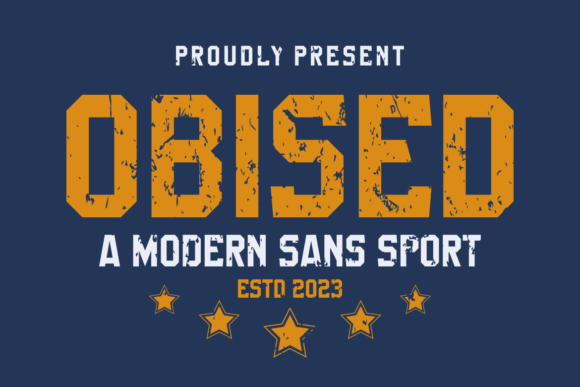
Introducing Obised Font - the epitome of power, energy, and resilience! Created by the visionary maikofarazhatta, this sans serif font is the ultimate choice for all your gaming subtitle needs.
With its bold and captivating design, Obised Font perfectly captures the dynamic spirit and toughness that are synonymous with physical activity and sports. It exudes an unrivaled strength that will elevate your gaming experience to new heights.
Obised Font is not just a font, it's a statement. It embodies the raw intensity of competitive gaming, making it the go-to choice for gamers and eSports enthusiasts alike. Its striking presence on any screen or platform will instantly draw attention and leave a lasting impression.
Whether you're a professional gamer, a gaming content creator, or an avid fan, Obised Font is your secret weapon for creating visually stunning subtitles that enhance the overall gaming experience. Its sleek and modern appearance adds a touch of professionalism, ensuring that your content stands out from the crowd.
But Obised Font isn't limited to just gaming. Its versatility shines through in its ability to be used in brand identities for sports teams, sports companies, and major sporting events. It effortlessly captures the essence of athleticism, making it the perfect choice to represent the spirit of any sports-related venture.
Don't settle for ordinary fonts when you can have the best font for gaming subtitles. Obised Font - where power meets style.